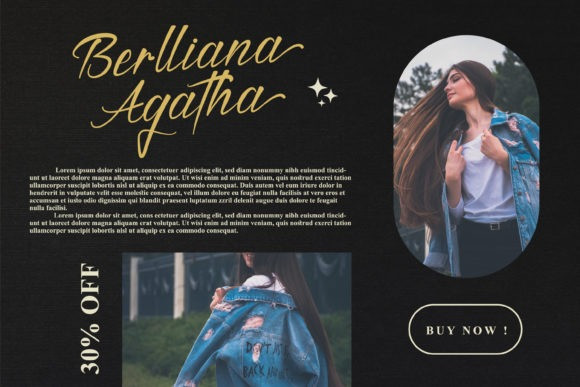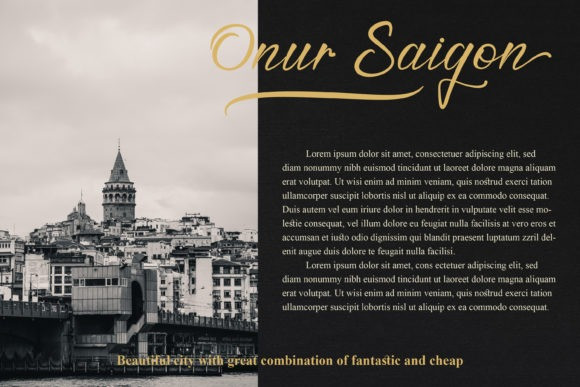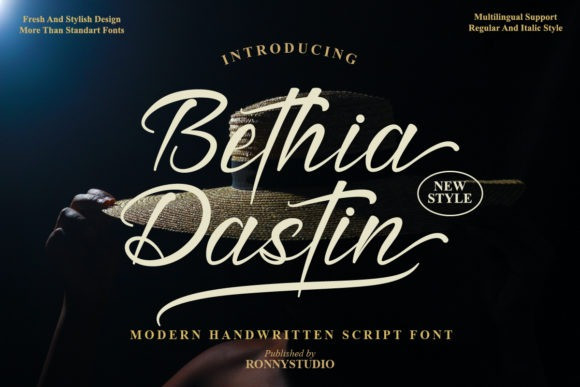
Bethia Dastin Font
Bethia Dastin is a unique and elegant handwritten font. It looks beautiful on a variety of designs requiring a personalized style. Bethia Dastin is PUA encoded which means you can access all glyphs and swashes with ease!